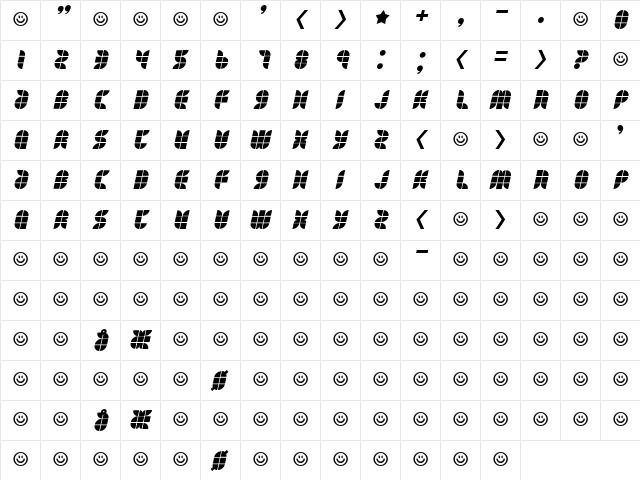
Eat your heart out Regular
Design Context for Eat your heart out Typeface
Eat your heart out is a composed and adaptable typeface that performs quietly and consistently across a wide range of design contexts.